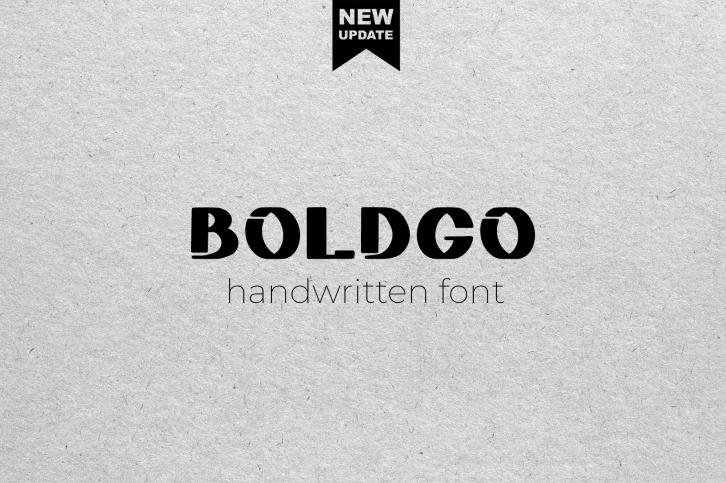
BOLDGO is a great font that was designed by Zabawna. Imagine the amount of combinations you can create using this font! The archive is 17.54 MB and it was released on April 6, 2021. BOLDGO looks beautiful on wedding invitations, greeting cards, logos, posters, labels, t-shirt designs, logos, business cards and is perfect for use in ink or watercolor works, fashion, magazines, packaging and food menus, children's books and more!